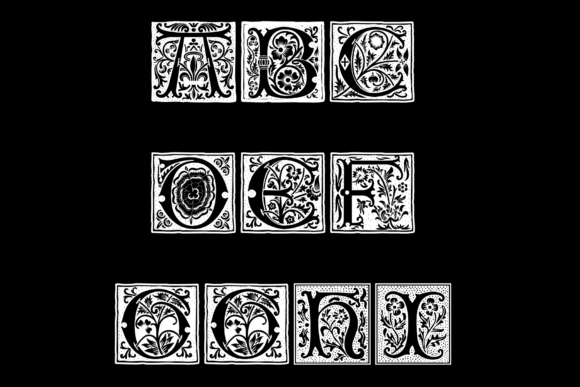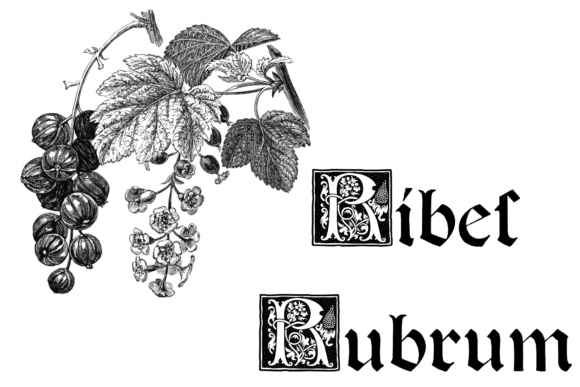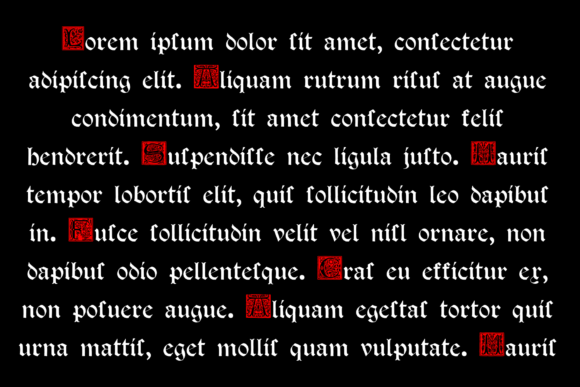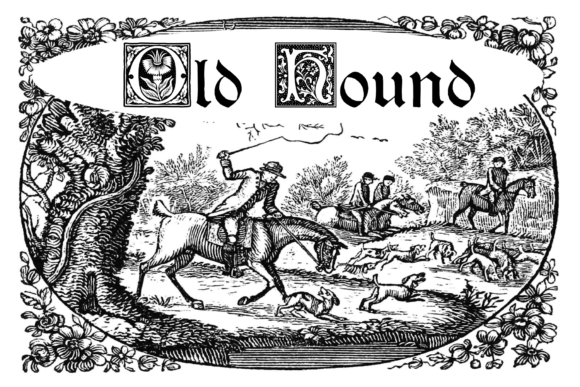
Introducing Dottore Vibulanus Font: A Timeless Elegance for Your Design
Are you looking for a font that can transport your design back in time to an era of unrivaled craftsmanship and luxury? Look no further than Dottore Vibulanus, an ornamental gothic blackletter typeface that is a stunning reproduction of ancient scripts and medieval manuscripts. This font is the perfect choice for designers and crafters who want to add a touch of age-old elegance to their work.
The Inspiration Behind Dottore Vibulanus
Dottore Vibulanus is inspired by the traditional scripts of the past, with intricate details and flourishes that evoke a sense of nostalgia and sophistication. The font’s design is rooted in the ornamental gothic blackletter style, which was popular during the Middle Ages. This style is characterized by its dramatic and intricate letterforms, which were often used in illuminated manuscripts and other decorative texts.
A Timeless Elegance
One of the standout features of Dottore Vibulanus is its timeless elegance. The font’s intricate details and flourishes give it a luxurious feel that is perfect for high-end designs. Whether you’re working on a title, invitation, or other design project, Dottore Vibulanus is sure to make a statement. The font’s classic sophistication is sure to evoke a sense of refinement and tastefulness, making it perfect for designers who want to create a sense of luxury and exclusivity.
Dottore Vibulanus is ideal for designers and crafters who want to add a touch of history and elegance to their work. The font is perfect for a variety of design projects, including:
- Titles and headings: Dottore Vibulanus is perfect for creating eye-catching titles and headings that make a statement.
- Invitations and announcements: The font’s elegant and sophisticated feel makes it perfect for invitations and announcements.
- Logos and branding: Dottore Vibulanus can be used to create a unique and memorable logo that sets your brand apart.
- Packaging and labels: The font’s classic feel makes it perfect for packaging and labels that require a touch of elegance.
Key Features of Dottore Vibulanus
Dottore Vibulanus has a number of key features that make it stand out from other fonts. Some of the font’s key features include:
- Intricate details and flourishes: The font’s intricate details and flourishes give it a luxurious feel that is perfect for high-end designs.
- Ornamental gothic blackletter style: The font’s ornamental gothic blackletter style is a stunning reproduction of ancient scripts and medieval manuscripts.
- Timeless elegance: The font’s classic sophistication is sure to evoke a sense of refinement and tastefulness.
- High-quality design: The font is designed to the highest standards, ensuring that it looks great in any design project.
Why Choose Dottore Vibulanus?
There are many reasons why designers and crafters should choose Dottore Vibulanus for their design projects. Some of the reasons include:
- Unique and memorable: The font’s intricate details and flourishes make it unique and memorable.
- High-end feel: The font’s luxurious feel is perfect for high-end designs that require a touch of elegance.
- Versatile: The font can be used for a variety of design projects, from titles and headings to logos and branding.
Dottore Vibulanus is a stunning font that is perfect for designers and crafters who want to add a touch of age-old elegance to their work. The font’s intricate details and flourishes give it a luxurious feel that is perfect for high-end designs. With its timeless elegance and classic sophistication, Dottore Vibulanus is sure to make a statement in any design project. Whether you’re working on a title, invitation, or other design project, Dottore Vibulanus is the perfect choice.
Tips for Using Dottore Vibulanus
Here are a few tips for using Dottore Vibulanus in your design projects:
- Use it sparingly: Because of its intricate details and flourishes, Dottore Vibulanus is best used sparingly. Use it for titles and headings, but not for body text.
- Pair it with a simple font: Pair Dottore Vibulanus with a simple font to create a striking contrast.
Dottore Vibulanus is a stunning font that is perfect for designers and crafters who want to add a touch of age-old elegance to their work. With its intricate details and flourishes, timeless elegance, and classic sophistication, Dottore Vibulanus is sure to make a statement in any design project. Download it today and start creating your own unique designs!